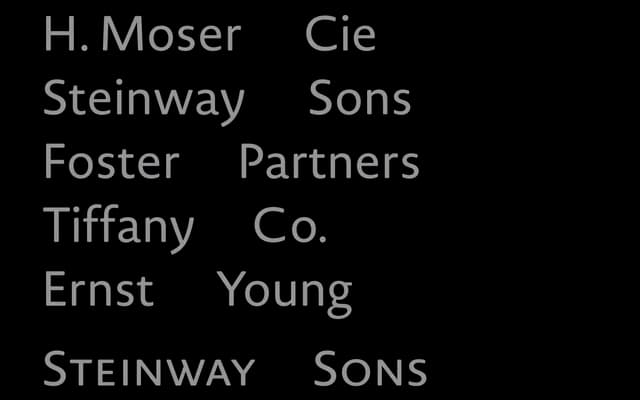
Novel Sans Rounded
A rounded humanist sans from Atlas Fonts, offering softened terminals for a warmer, more approachable tone.
Derived from the Novel Sans family, this rounded variant replaces hard terminals with smooth, closed strokes throughout. The result is a typeface that retains the legibility and structure of a humanist sans while projecting a friendlier character suited to branding, editorial and screen use. Its relationship to the broader Novel Sans family gives it a consistent typographic voice across mixed-weight settings.
Novel Sans Rounded is a rounded variant of a humanist sans-serif, with softened terminals characteristic of rounded sans designs. The base family's humanist proportions and the rounded treatment place it firmly in that subcategory.